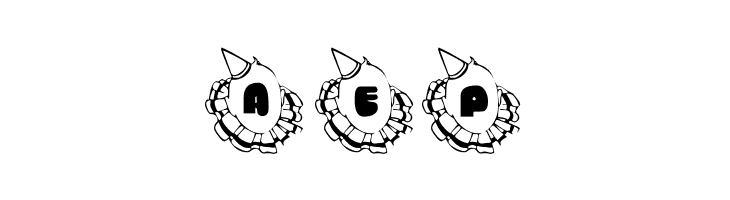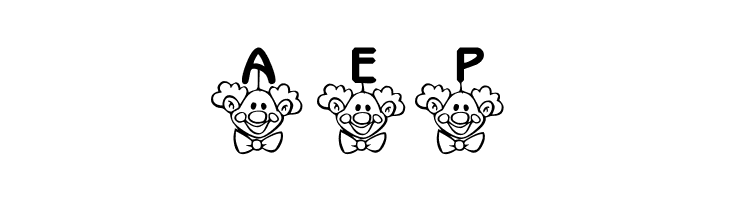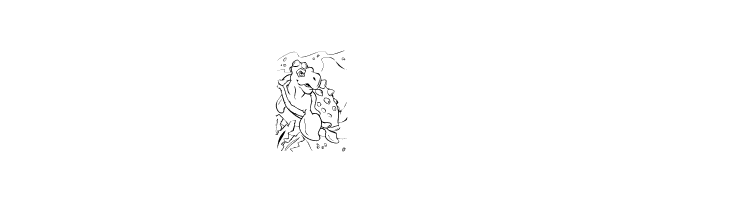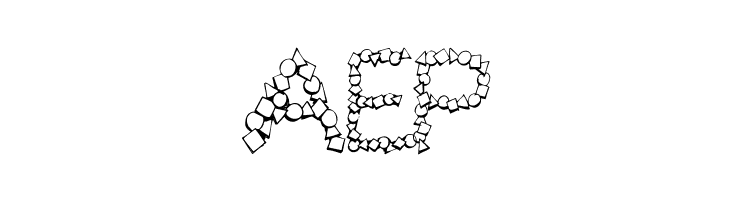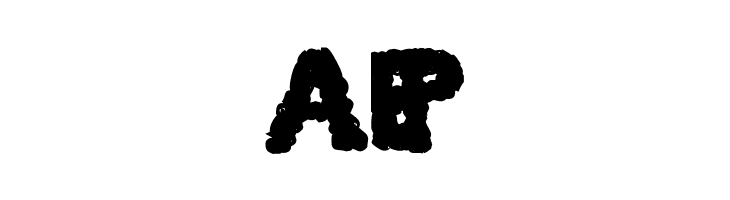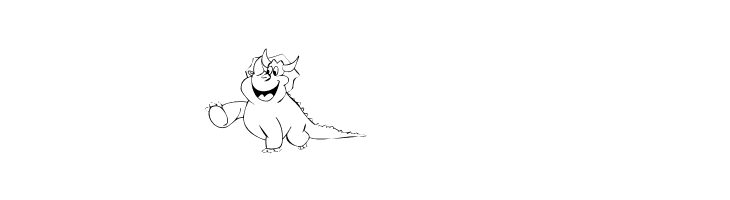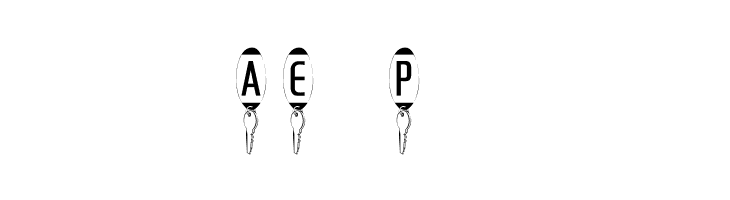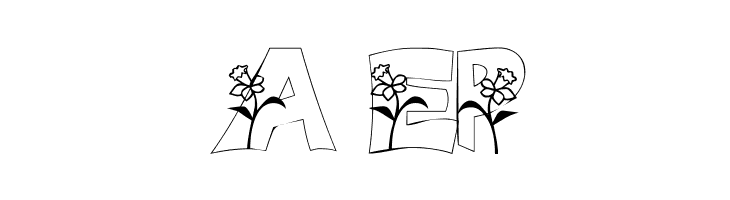
A whimsical font with characters encased in clown faces, ideal for playful designs.
A playful font featuring bold letters with clown faces, perfect for fun projects.
Decorative cartoon dinosaur illustration font.
A playful, confetti-inspired decorative font with intricate geometric shapes.
A bold, distressed font with a corroded, textured appearance.
A playful font with characters inside rocket ships, ideal for adventurous themes.
A playful decorative font with critter-themed illustrations in each letter.
Cartoon dinosaur illustrations replace traditional letterforms.
A decorative font with characters inside key-shaped outlines.
A decorative font with floral embellishments on each character.